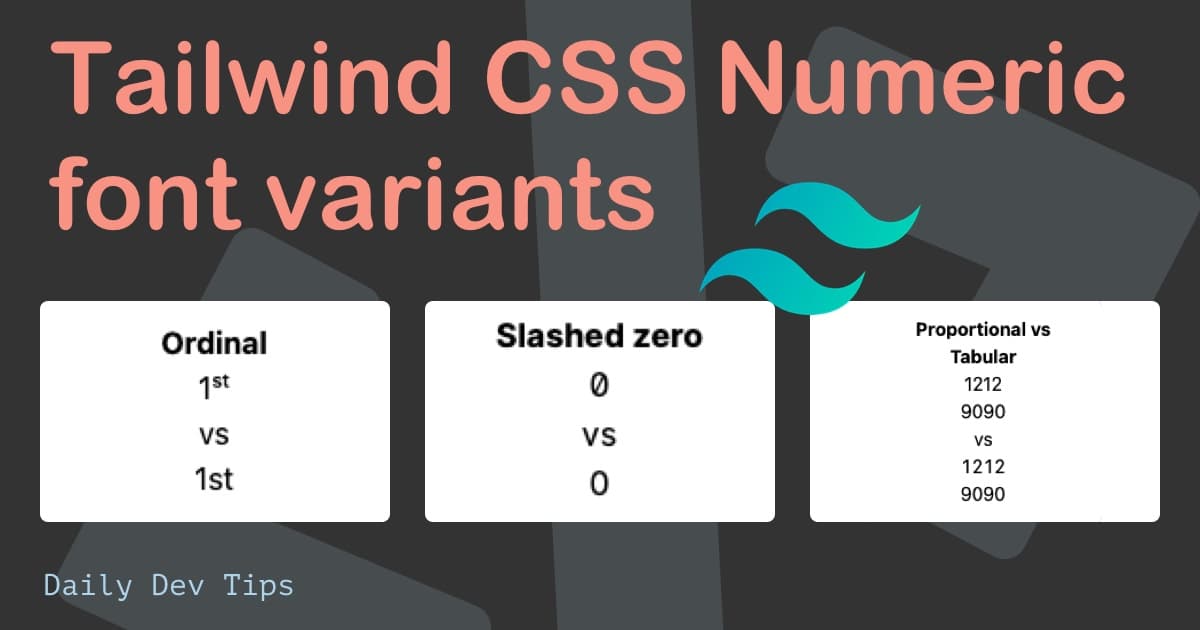
Did you know there is a CSS property to adjust how numeric values are displayed? It's called the font-variant-number property, and it is used to distinguish how a particular font should render specific numeric values. Tailwind CSS has this support bu...